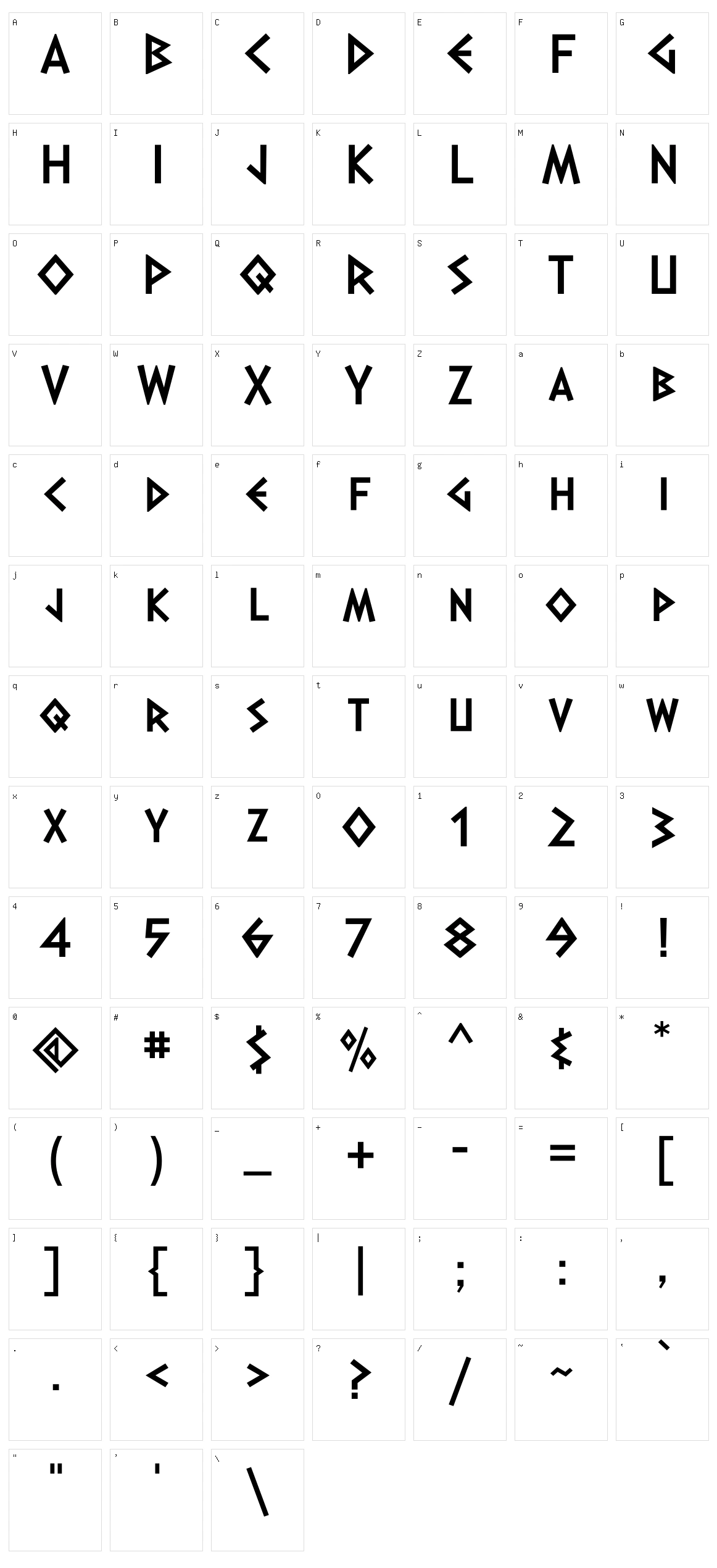
DALEK PINPOINT is a clean and precise version of K-Typeâs distressed DALEK typeface, a small caps face with overtones of Greek, Phoenician and Runic alphabets, based on Dalek comic book lettering from the 1960s.
The typeface includes Regular and Bold weights, plus an Italic and a Bold Italic which are optically corrected obliques. Each font contains a full complement of Latin Extended-A characters.